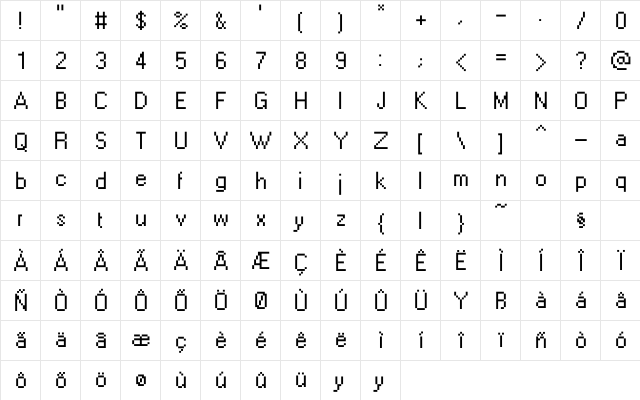
W95FA Regular
Design Context for W95FA Typeface
W95FA offers clean, dependable letterforms without strong stylistic allegiance, making it a practical choice for designers who need flexibility.